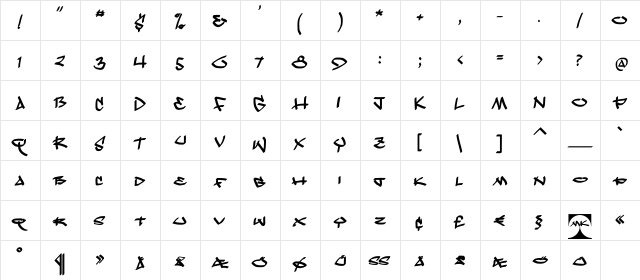
Kleinscribere Bold
Design Context for Kleinscribere Typeface
Kleinscribere is a composed and adaptable typeface that performs quietly and consistently across a wide range of design contexts. Its bold stroke weight gives it real presence on the page.